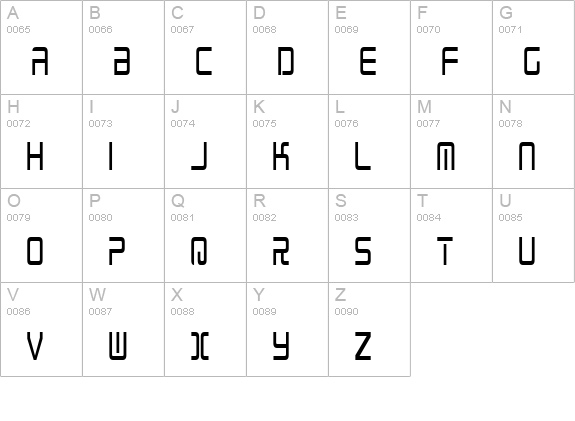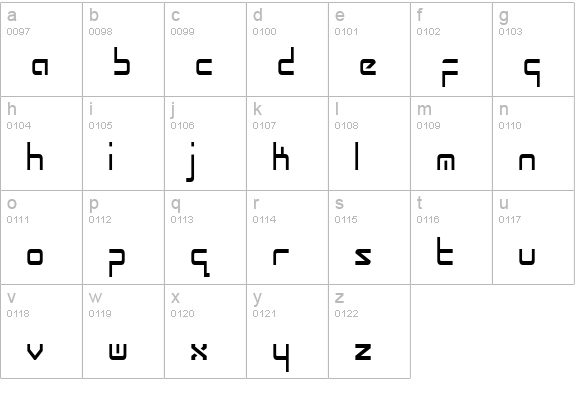
Radio Space Condensed is a distinctive, condensed-width variant in the Radio typeface family \xE2\x80\x94 well suited to design and typography projects.
Introducing Radio Space Condensed, a sleek and modern font that embodies the essence of futuristic design. With its condensed letterforms and precise lines, this typeface exudes a sense of efficiency and sophistication, making it perfect for any project that requires a contemporary touch. Radio Space Condensed offers a unique combination of elegance and versatility, making it suitable for a wide range of applications. Whether you're designing a cutting-edge website, creating eye-catching advertisements, or crafting professional print materials, this font will effortlessly elevate your work to new heights. One of the standout features of Radio Space Condensed is its ability to convey a sense of space and openness, despite its condensed nature. Its carefully crafted letterforms maintain optimum legibility while maximizing the use of available space, resulting in a typographic masterpiece that captivates the reader's attention. But what truly sets Radio Space Condensed apart is that it is freely available to download at FontsMarket.com. Yes, you read that right – this exceptional font can be yours without any cost. We believe that great design should be accessible to all, and by offering Radio Space Condensed for free, we are enabling designers, professionals, and enthusiasts to create remarkable visuals without any barriers. With its impeccable proportions, clean lines, and extensive character set, Radio Space Condensed is a font that will undoubtedly become a staple in your design toolkit. So don't miss out on this incredible opportunity – head over to FontsMarket.com and download Radio Space Condensed today, and let your creativity soar to new heights.